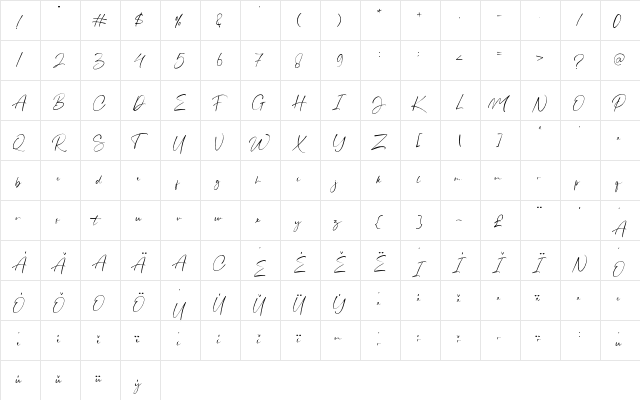
Grahamo Regular
| Foundry | Candra Hamdani ~ Vultype Co |
| Designer | Candra Hamdani |
Design Context for Grahamo Typeface
Grahamo is a composed and adaptable typeface that performs quietly and consistently across a wide range of design contexts.